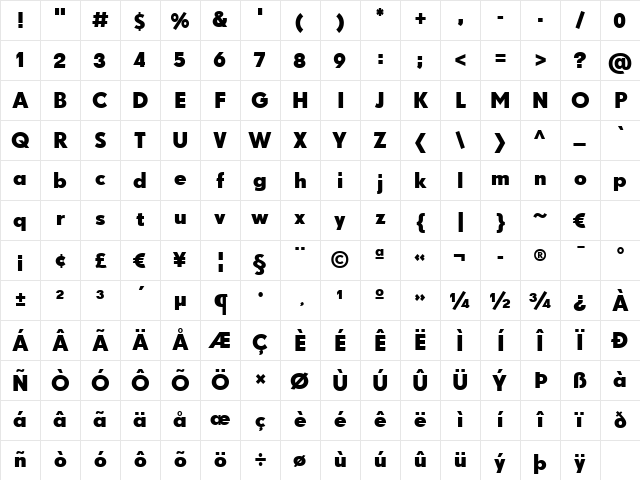
Drescher Grotesk BT Bold Regular
Complete Drescher Grotesk BT Bold Regular glyph index. Displaying only characters natively supported by Drescher Grotesk BT Bold Regular font.
Design Context for Drescher Grotesk BT Bold
Drescher Grotesk BT Bold takes a clean, functional approach - its unadorned letterforms prioritise legibility and work reliably across screen and print environments. Its bold stroke weight gives it real presence on the page.
Font Pairing: Use Drescher Grotesk BT Bold for headlines alongside a lighter-weight sans or serif for body copy to establish clear visual hierarchy.
Pro Tip: Use Drescher Grotesk BT Bold for UI labels, navigation, and short-form body copy where clean legibility is the priority.